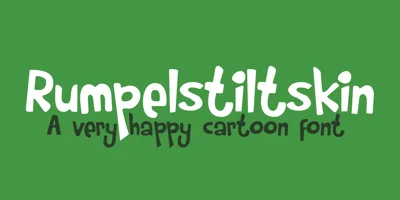
Rumpelstiltskin Font
Rumpelstiltskin Font is perfect for fairy tale book publishing, Brothers Grimm story collections, magical children's theater productions, enchanted forest theme parks, whimsical storytelling applications, and mystical folklore projects. Its fairy tale character makes it ideal for children's book publishers, story time venues, fantasy game developers, magical entertainment companies, and any application requiring enchanting typography that conveys fairy tale magic, folkloric wisdom, and the timeless charm of classical European storytelling traditions.
Rumpelstiltskin Font is exciting because it weaves the mischievous magic and folkloric mystique of Grimm fairy tales through cleverly crafted letterforms that capture the cunning wit and magical transformation central to classic storytelling. Its whimsical proportions and fairy tale details evoke the spinning wheels and golden threads of ancient folklore, making it perfect for brands seeking to create magical narrative experiences that honor storytelling traditions. The font's folkloric character transforms ordinary text into spellbinding tales of wonder.
Rumpelstiltskin Font family includes magically-crafted weight variations typically featuring Light, Regular, Medium, and Bold options with whimsical styling that maintains fairy tale authenticity. The family often incorporates folkloric symbols, magical ornaments, and storytelling elements designed for narrative applications, providing designers with comprehensive tools for creating authentic, fairy tale-inspired typographic compositions.
When selecting fairy tale typography solutions, Rumpelstiltskin Font represents an exceptional choice for magical storytelling projects. This enchanting typeface brings instant folkloric authenticity to any design, making it invaluable for children's publishers, entertainment venues, and storytelling organizations celebrating classical fairy tale traditions. Whether you're developing children's storybook materials, creating magical theater productions, or designing folkloric educational content, Rumpelstiltskin Font provides the fairy tale magic and storytelling authenticity essential for weaving enchanting narratives in today's story-hungry entertainment marketplace.